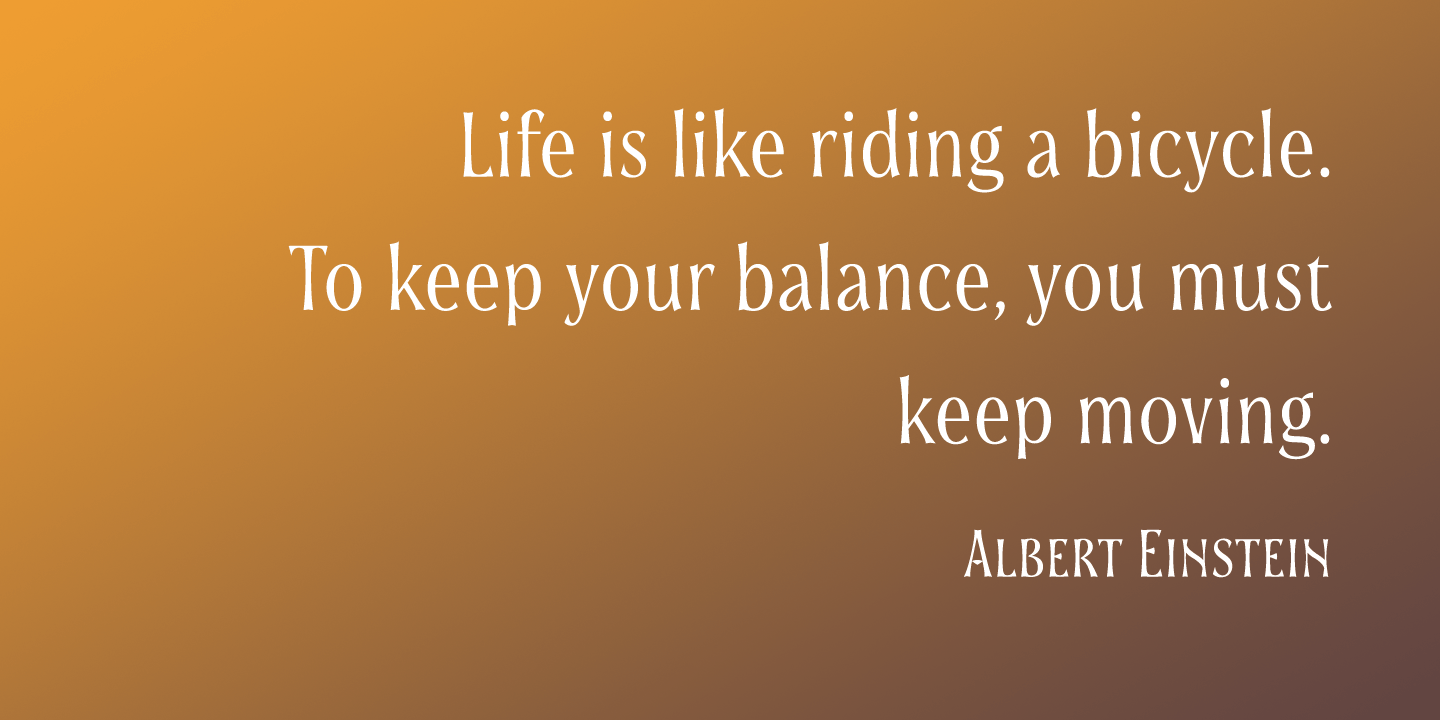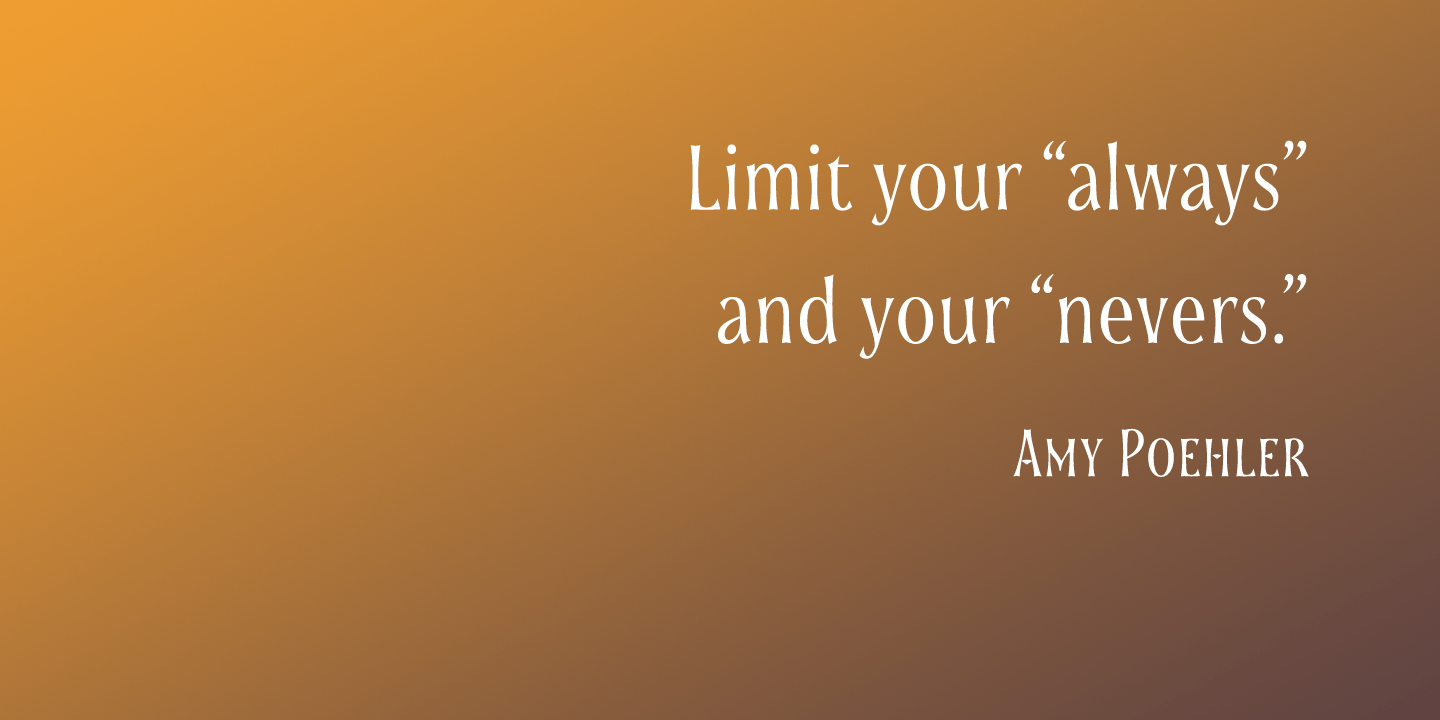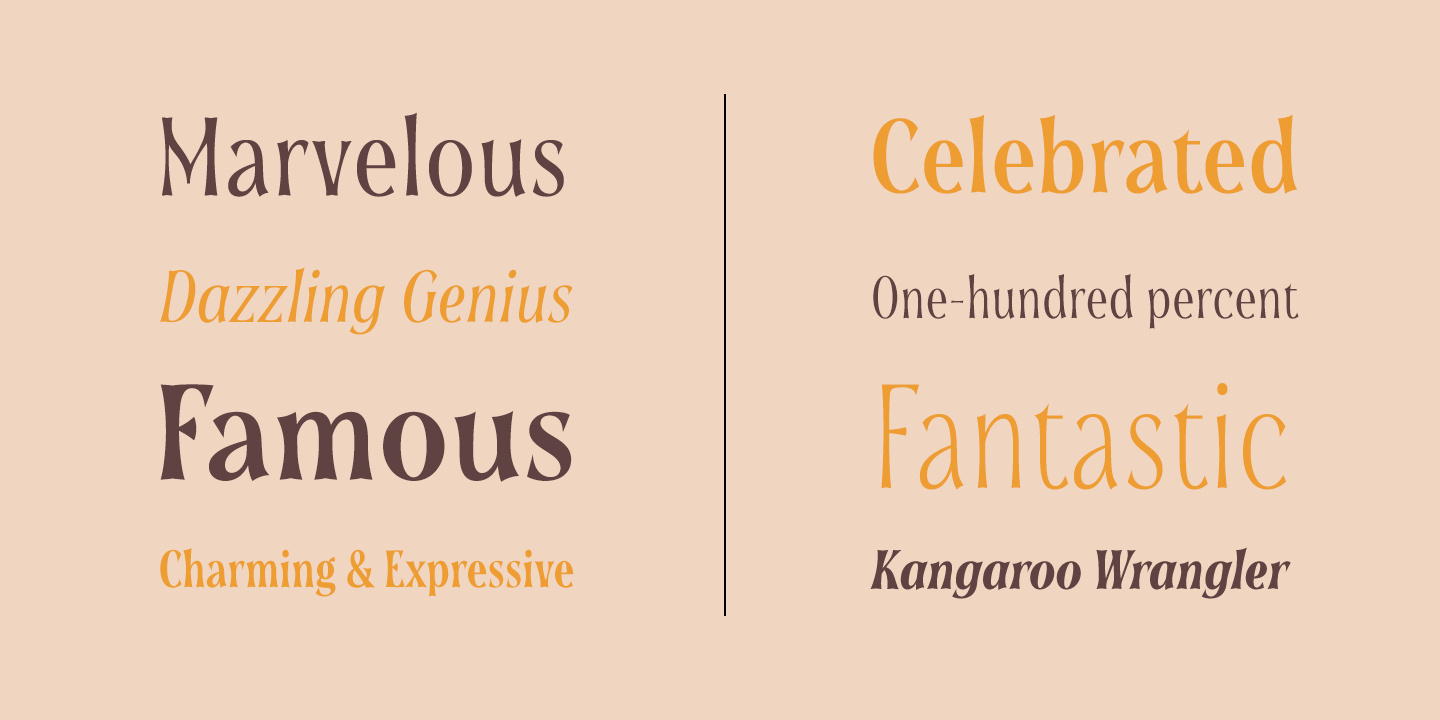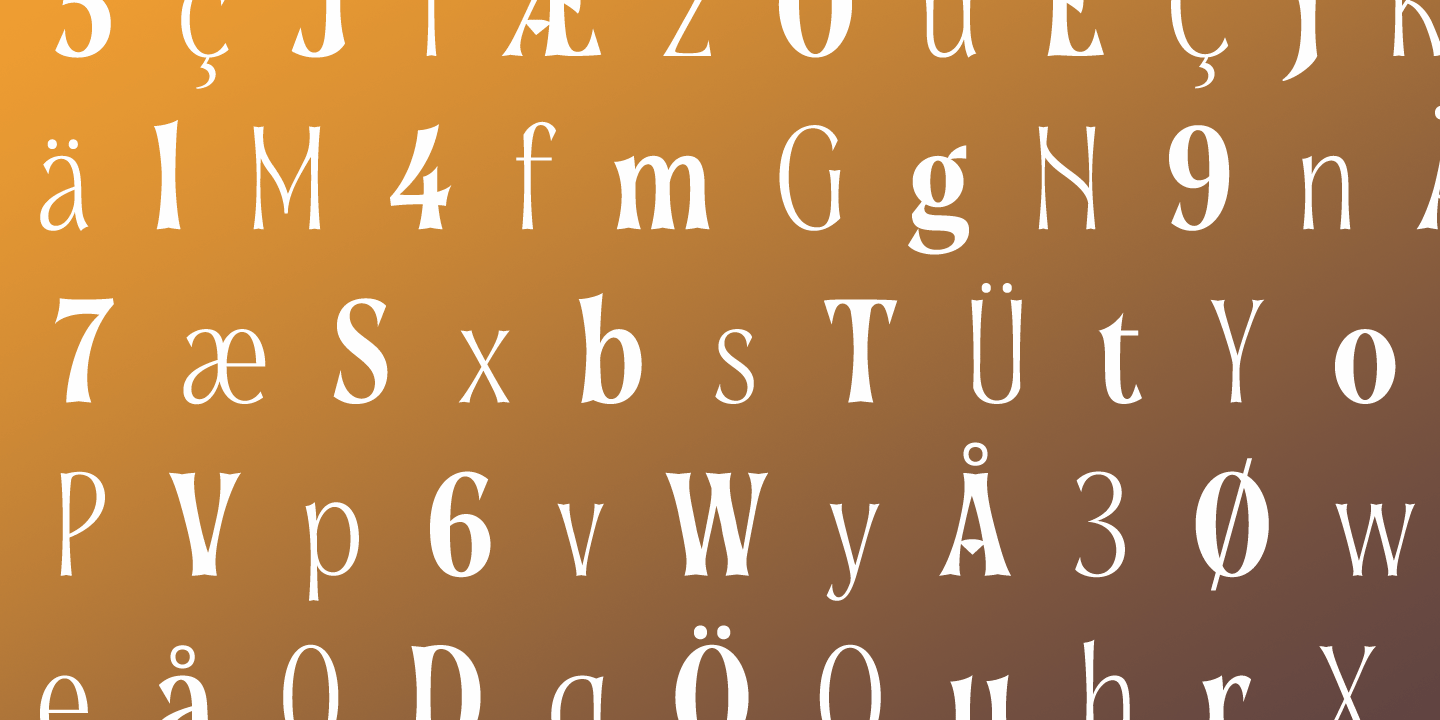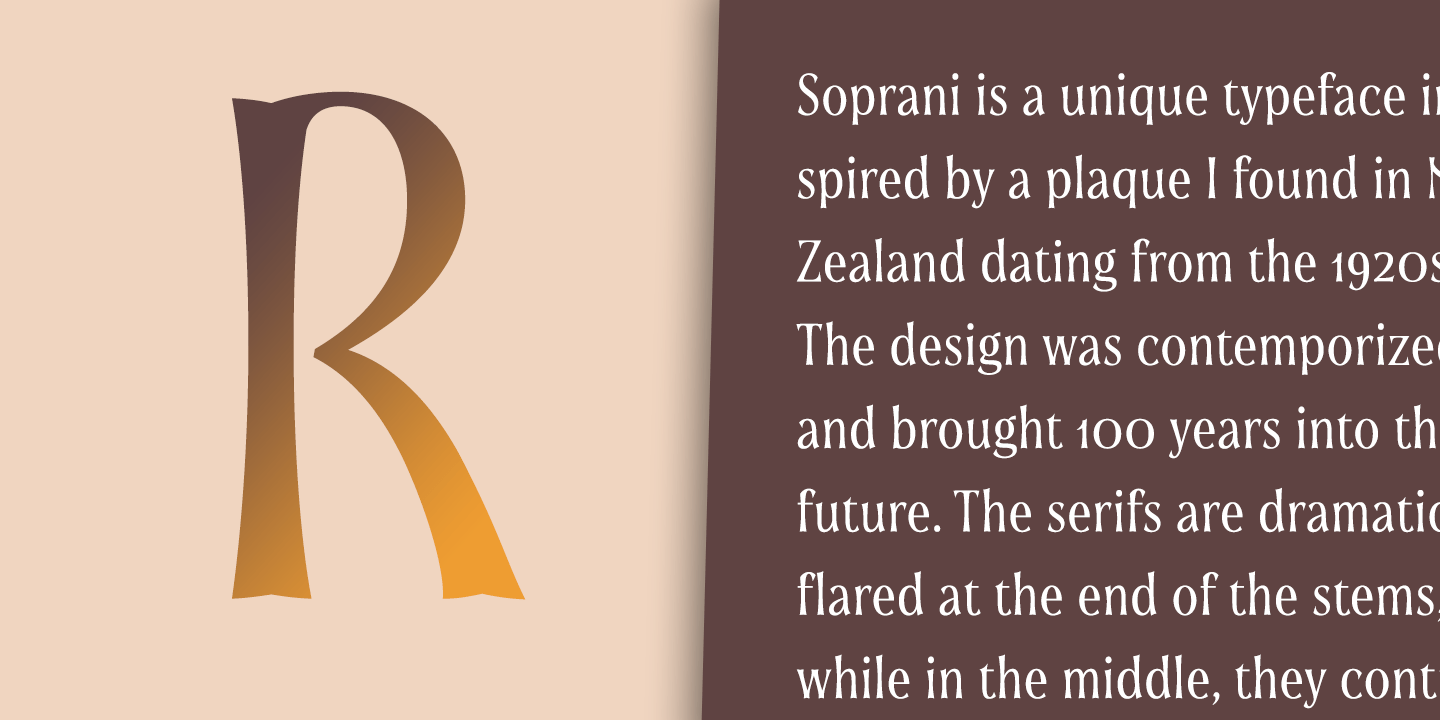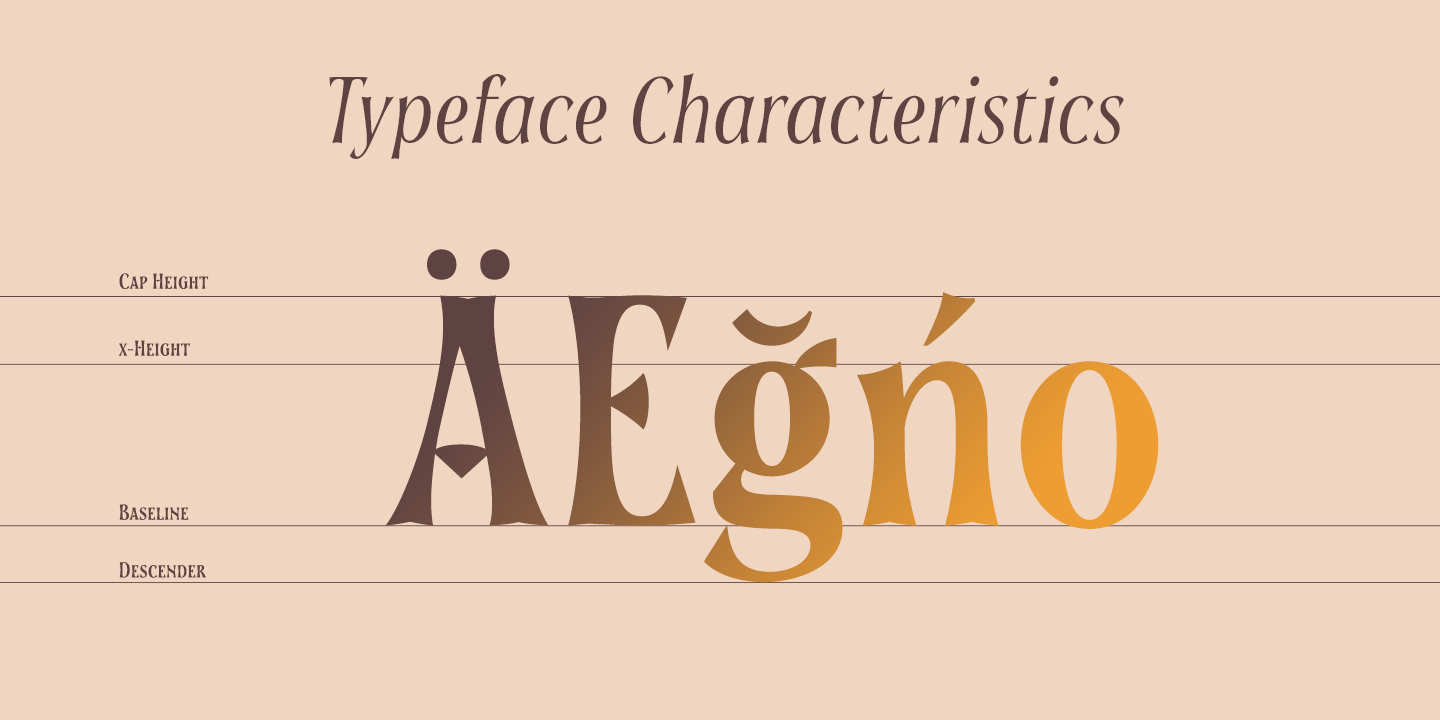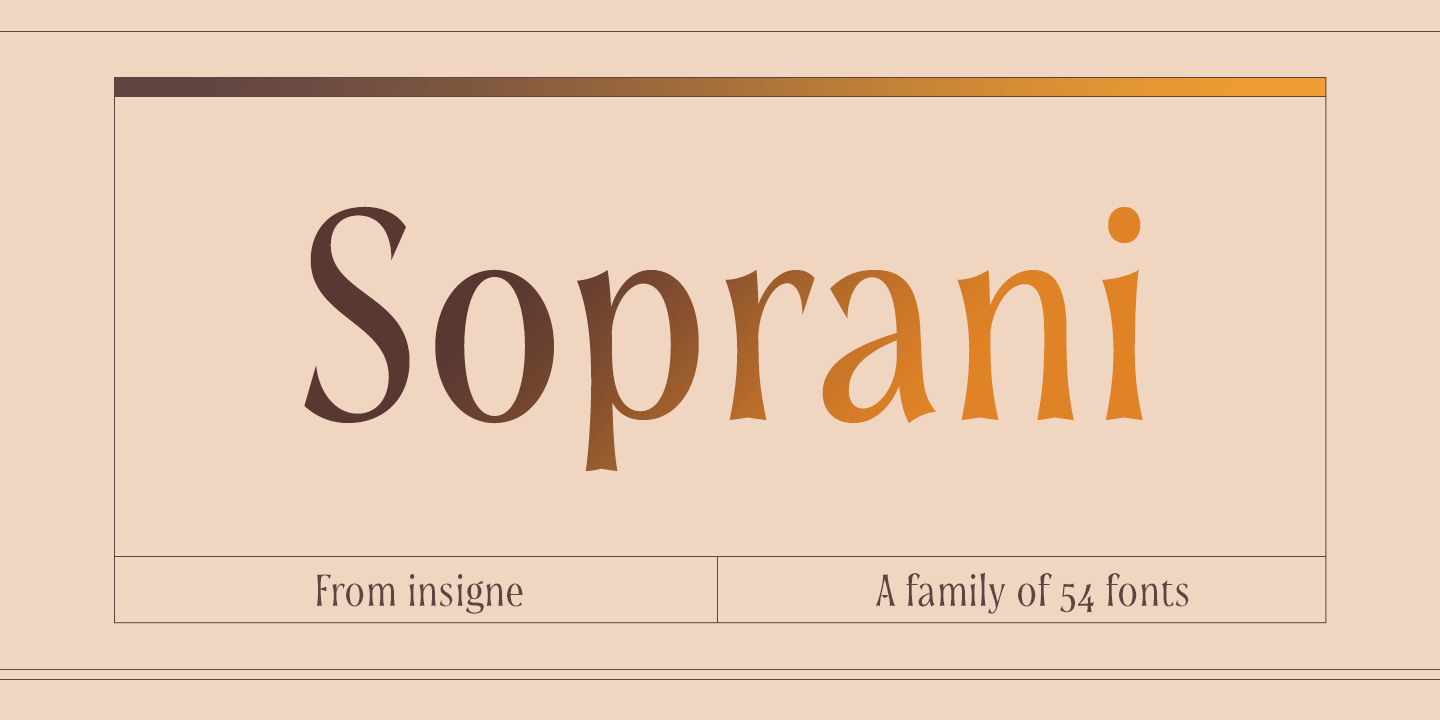
Soprani
About Soprani
Soprani is a unique typeface inspired by a plaque found in New Zealand dating from the 1920s. The design was contemporized and brought 100 years into the future. The serifs are dramatically flared at the end of the stems, while in the middle, they contract.…